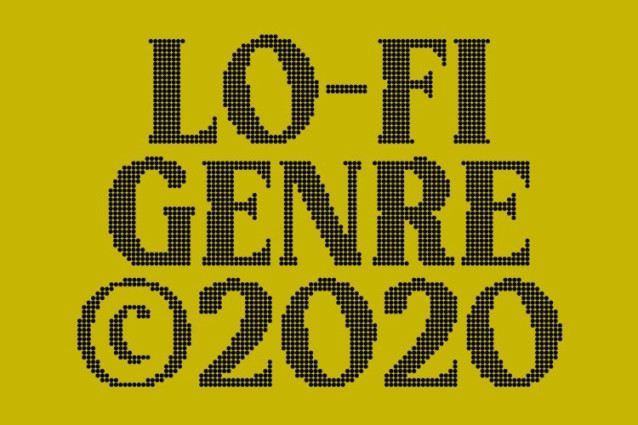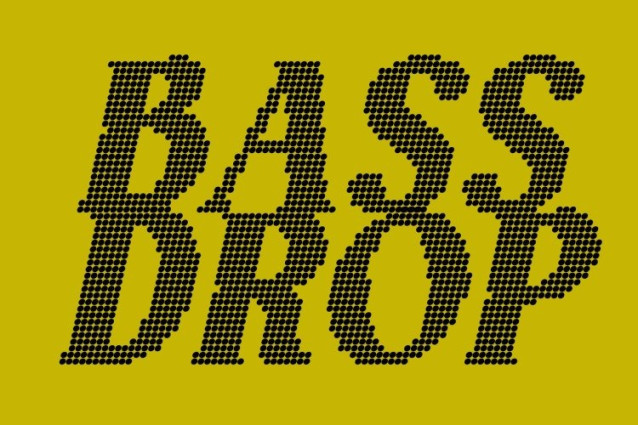
CS Bolt Disco Font
CS Bolt Disco Font This is a bold serif font designed to command attention through strong weight and confident structure. Its solid letterforms create instant visual impact, delivering authority and stability enhanced by a subtle disco-era rhythm. The result is a typeface that feels powerful, expressive, and visually balanced.
Strong Forms with Playful Disco Softness
What sets this font apart is its harmony between strength and softness. While bold strokes communicate confidence and dominance, gentle curves and rounded details introduce a playful, approachable feel inspired by the warmth of late 70s and early 80s design. This balance keeps the font assertive without feeling rigid or cold.
Modern Character with Energetic Expression
This font carries a modern design language infused with lively energy. Its bold construction works beautifully in contemporary layouts, while expressive nuances add movement and personality. The font feels confident and memorable, making it suitable for a wide range of creative applications.
Perfect for Headlines and High-Impact Branding
Ideal for headlines, posters, and bold branding identities, excels in designs that demand immediate attention. Whether used for statement typography, promotional visuals, or modern branding, it delivers a confident, powerful look with a touch of retro disco charm.